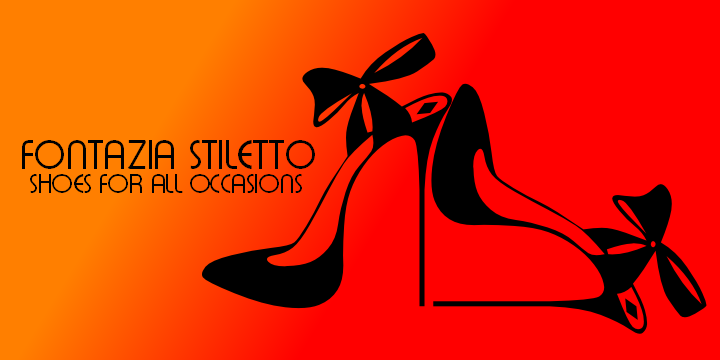
The Fontazia Stiletto font was inspired by my personal obsession with shoes. This is a stylized version of some of the lovely footwear found in my personal closet as well as some of my equally obsessed friends. You'll find 52 assorted shoe illustrations ranging from sandals to boots, some a little strange, but all in good fun.
Fontazia Stiletto